Fonts play a vital role in the overall visual appeal of your YouTube channel. Well-chosen YouTube fonts can make your channel stand out, convey a specific message, and reinforce your brand identity. In 2025, it's essential to choose the right bold font that's both modern and relevant to your YouTube videos. Let's take a look at the top 28 downloadable fonts for your YouTube channel in 2025.
1. Impact (Free)
Impact is one of the most widely-used outline fonts in 2025. It's a bold font style, commonly used on thumbnails and sometimes even channel banners. This is a highly clickable thumbnail font style that you just can't miss, the name doesn't lie! Plus Pewdiepie, one of Youtube's most popular creators, uses it for the majority of his videos. With 111,000,000+ subscribers, he might know a thing or two. This might just be the best Youtube font, so we had to rank it number one.
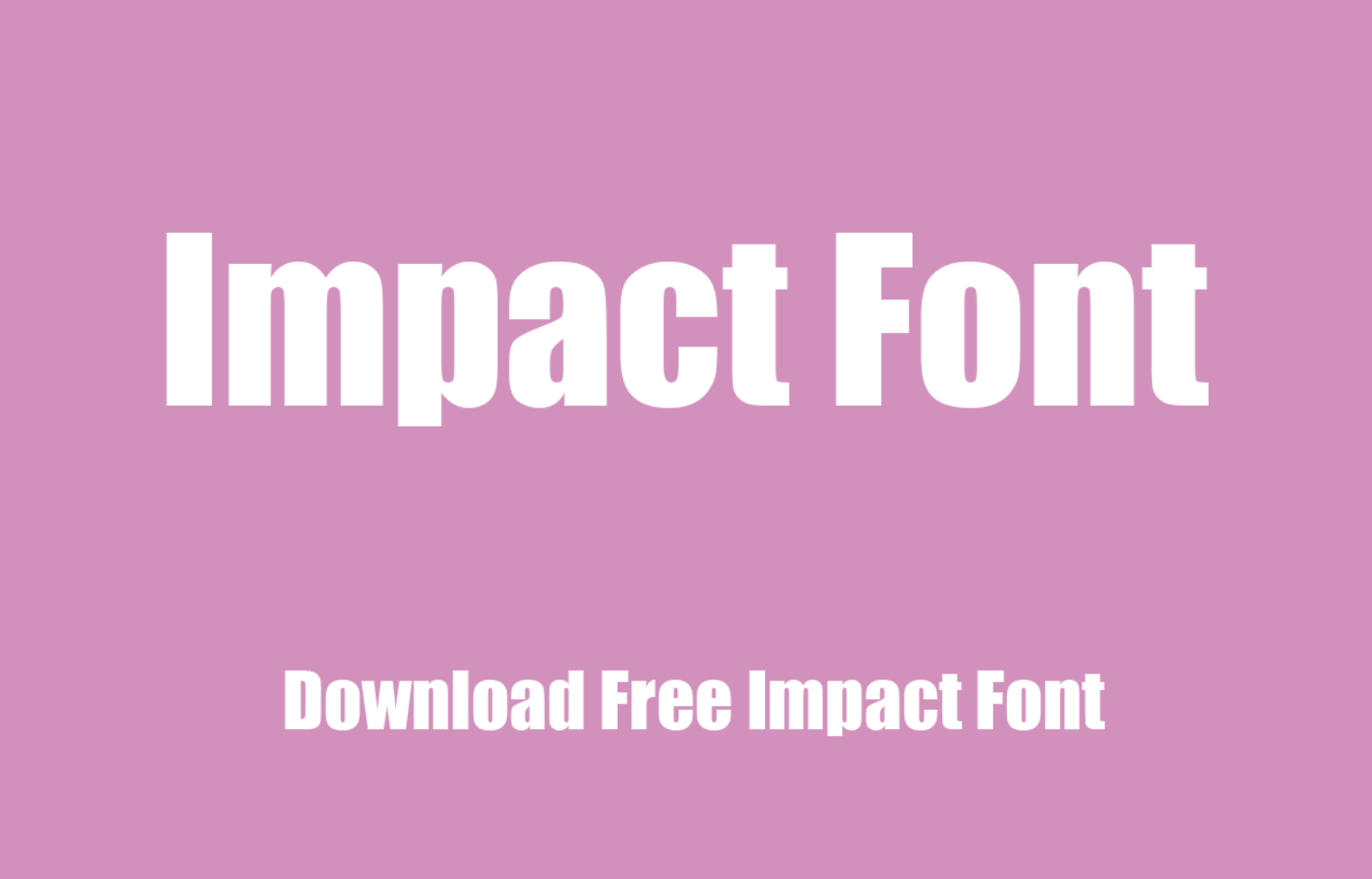
2. Bebas Neue (Free)
This is a bold and strong font that's perfect for attention-grabbing YouTube thumbnails and videos. It's also a great font for emphasizing important points in your videos that often need on-screen text, such as cooking videos and travel vlogs. You've definitely seen it before - many Youtubers commonly use it in white with a black outline. It's the go-to Youtube thumbnail for some of the most popular creators.
If you want to grab your audience's attention, this is the best font for you.
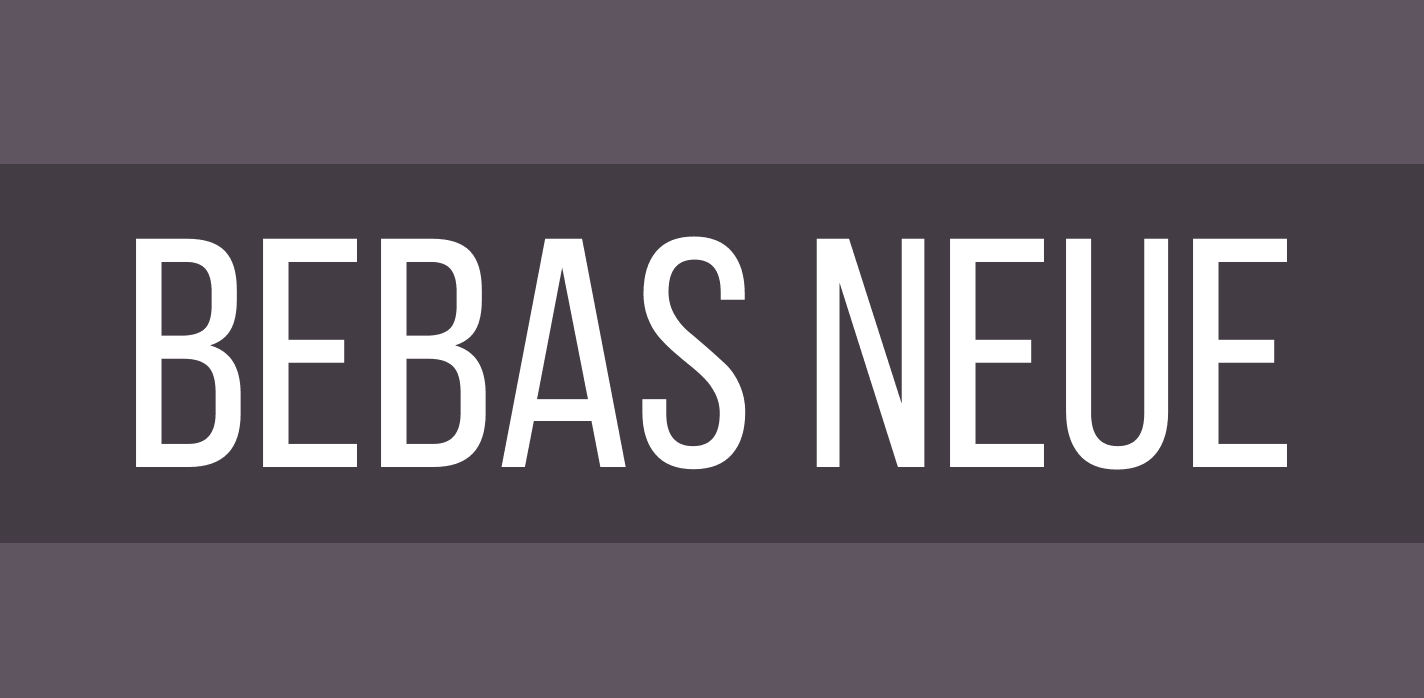
3. Roboto (Free)
One of the free best fonts for Youtube is Roboto. Designed by Christian Robertson, Roboto's sleek style is a perfect match for informational channels that need to be straightforward.
Fun fact - this is Google's most popular font. If YouTube is using Roboto for personal use, maybe we should take a note too.
4. Lato (Free)
Lato is sans-serif, aesthetically pleasing, and one of the most popular fonts on Youtube. It's great for Youtube content that's meant to be engaging and relatable. It's a popular choice for YouTubers who want to connect with their target audience on a personal level and a fantastic choice for both personal and commercial projects.
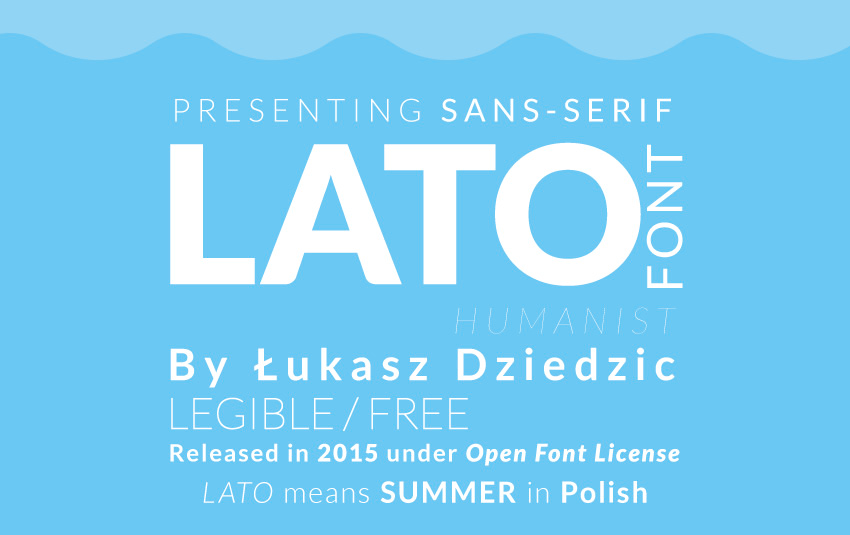
5. Raleway (Free)
Raleway is a beautiful and professional font with unique features that make it one of the perfect fonts for anything that needs a touch of refinement, from logos to headlines to display text.
It's one of the best fonts to make a statement without shouting it from the rooftops. Use this stylish font to create Youtube Thumbnails and attention-grabbing in video text. Careful with where you use this on Youtube, as the W in this font is an extremely eye catching feature and can catch some by surprise.
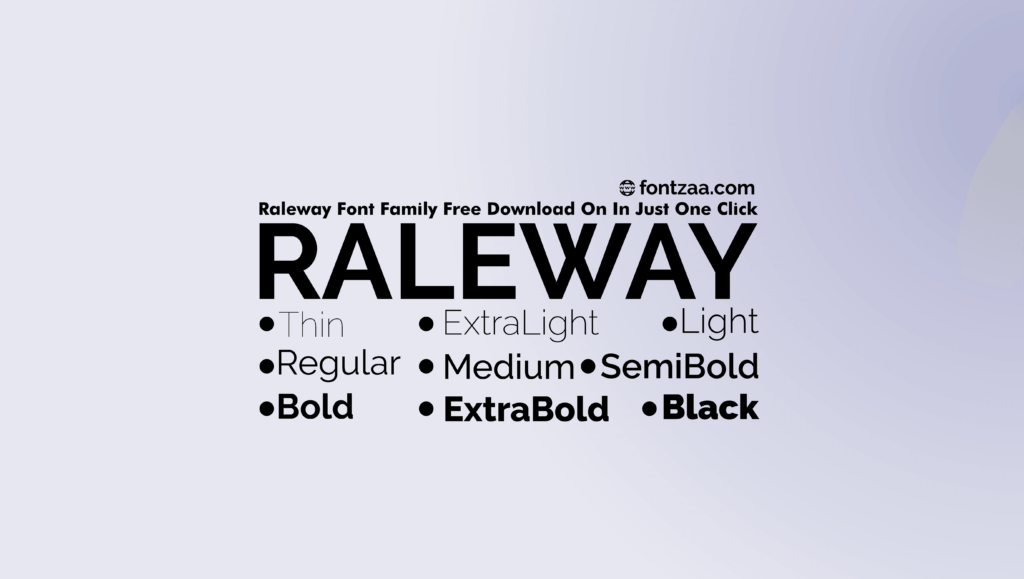
6. Open Sans (Free)
Open Sans is a free sans serif font style, and one of the best fonts for versatility. This font is just what you need if you want to keep consistent across, your video thumbnail, Youtube banner, and even in video text.
If you need something eye catching in your videos that isn't too "in your face", Open Sans might be one of the best fonts for you.
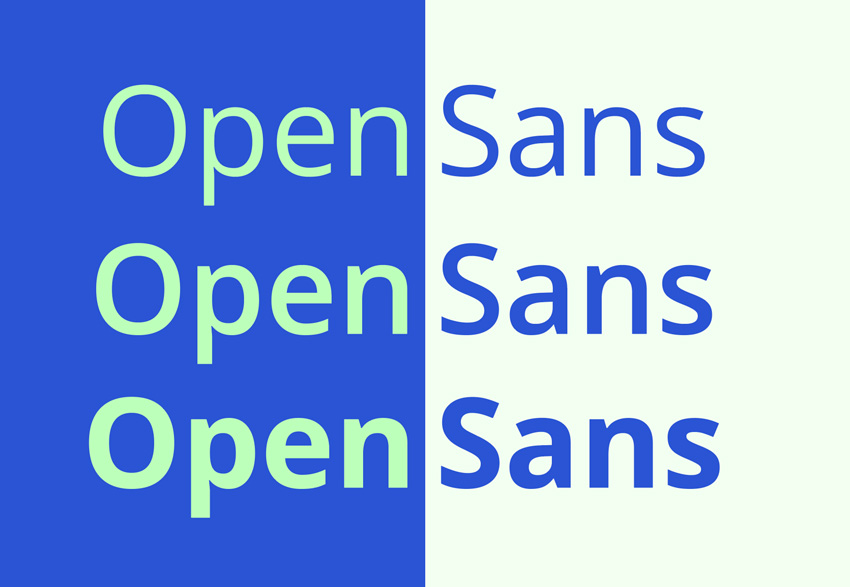
7. Gotham (Free)
Gotham is a classic font that's been around for over a decade. It's a bold and attention-grabbing font that's perfect for titles and headlines. It's also a stylish urban font that can effectively deliver a message. Remember a certain former President making waves with one word: "HOPE"? We bet you do, and that should speak to why this is one of the best fonts for Youtube thumbnails and channel banners.
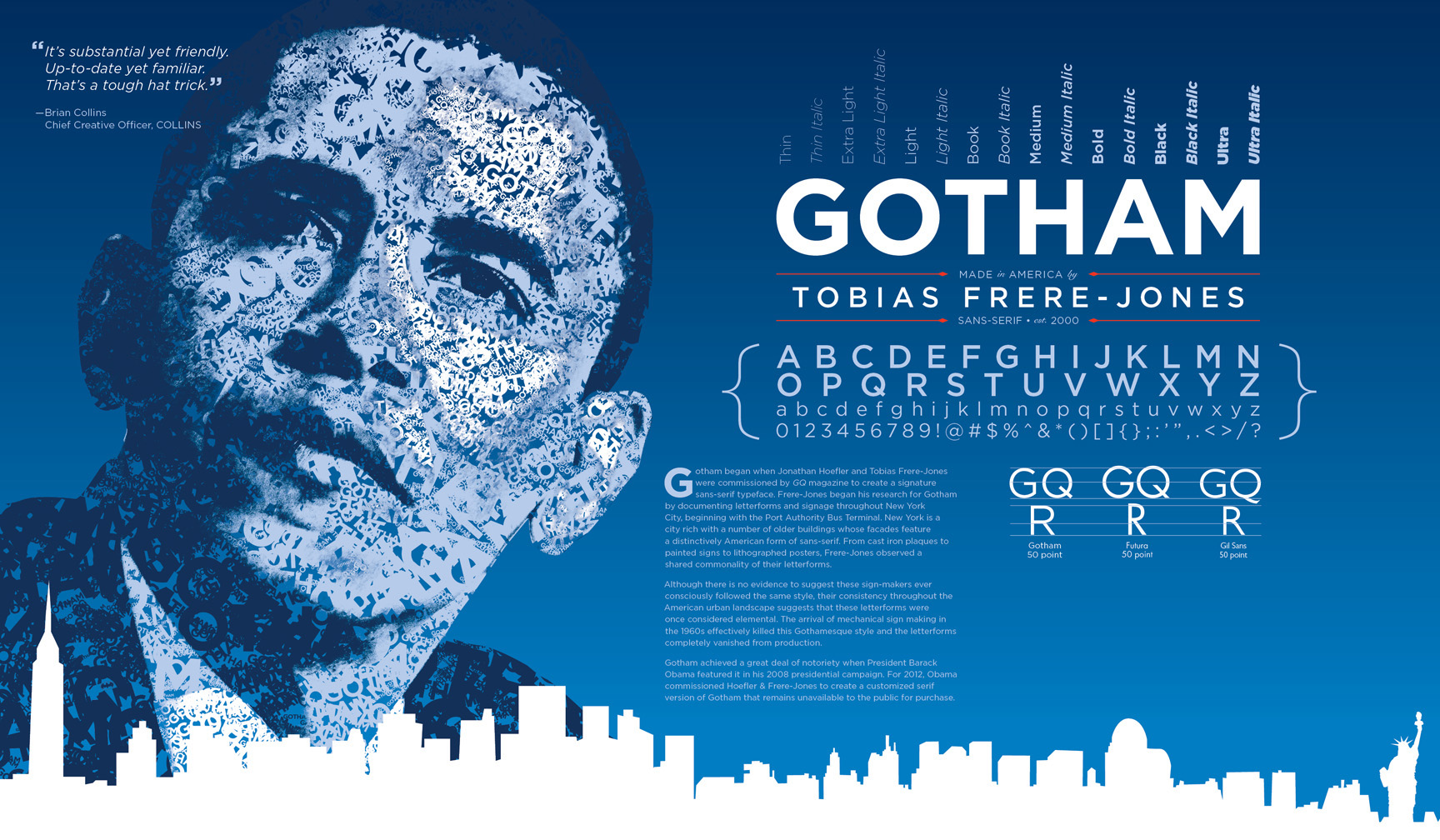
8. Proxima Nova (Free)
Proxima Nova is a sleek and modern font that's great for tech, gaming, and other futuristic content. It's a popular choice among YouTube creators who want to convey a sense of innovation and progress. When it comes to bold fonts for Youtube thumbnails, Proxima Nova's bold font styles provide a variety of amazing options. This font pack even comes with extra styles including an italic version.
Although Proxima Nova was officially released in 2015, type designer Mark Simonson started working on the typeface almost in 1980, 25 years earlier! Talk about a work in progress.
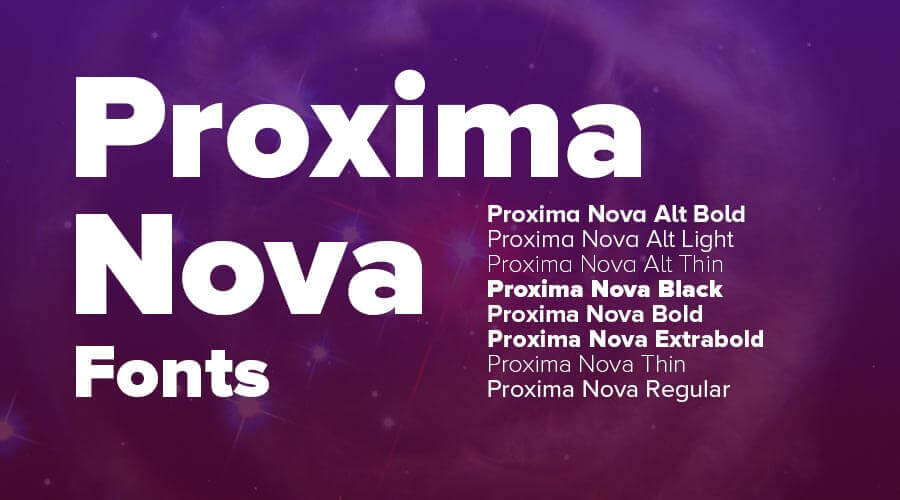
9. Playfair Display (Free)
When it comes to youtube fonts, Playfair Display might just be the best option out there for fashion, beauty, and lifestyle content. It's a popular choice among YouTube creators who want to keep their font stylish and convey a sense of luxury and refinement in their Youtube videos.
Although created in 2011, this font was influenced by typefaces from the mid to late eighteenth century, such as Baskerville.
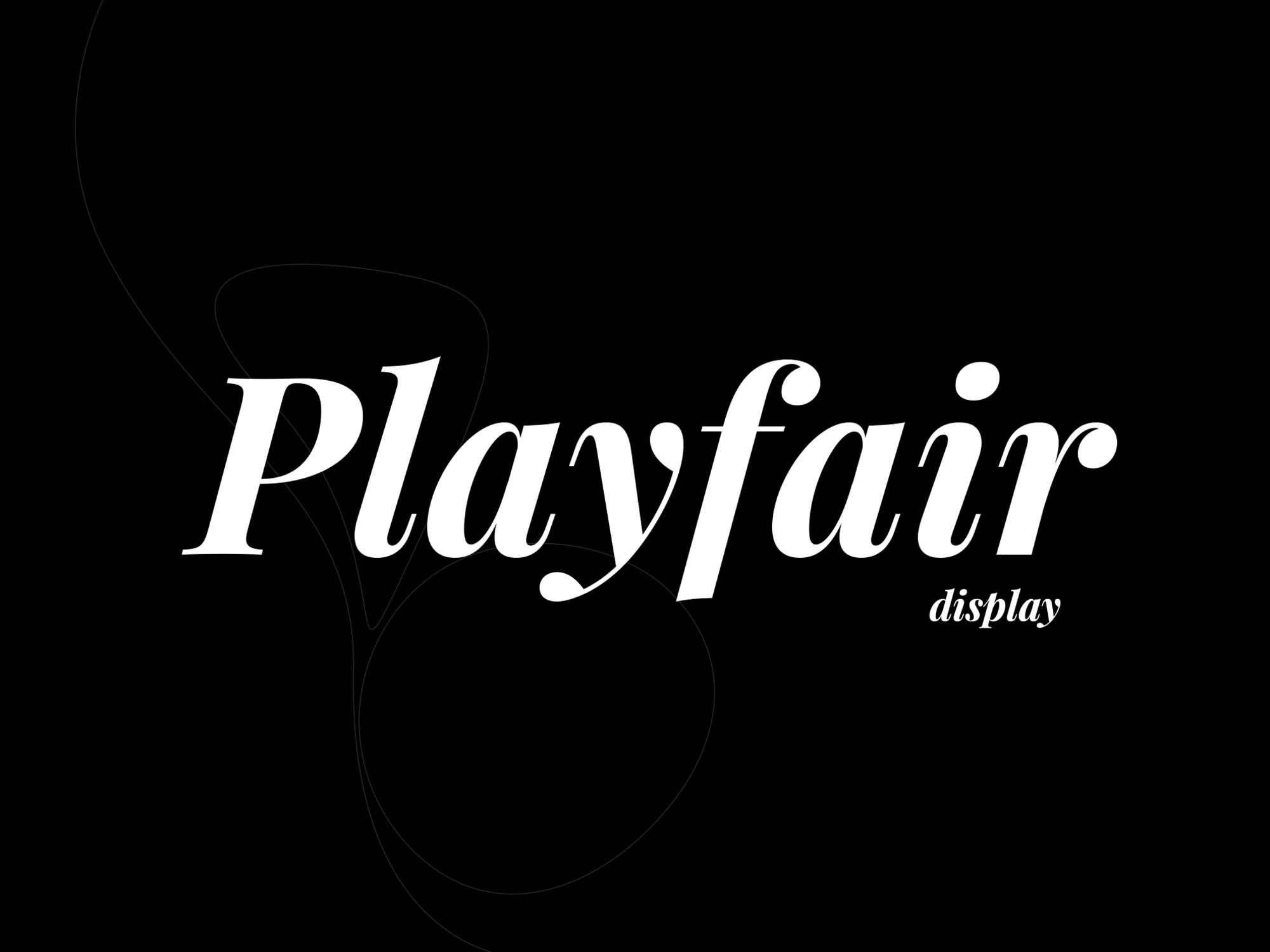
10. Avenir (Free)
Avenir might be the best Youtube font for YouTube creators who want to convey a simple and effective look. If you're not looking for a funky font and trying to stay far away from a quirky font, you can trust Avenir to do the job.
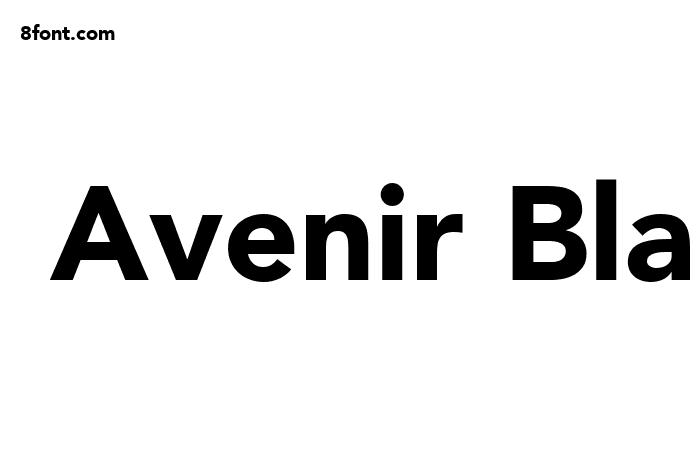
11. Futura (Free)
Futura is a classic font that's been around since the 1920s. Tried and true, many Youtubers still use this old font for it's bold, futuristic vibe to convey the same type of emotion with their Youtube videos. Futura was even used by NASA on the side of their rockets, and could be seen on the Apollo 11 mission. That's a pretty impressive track record in the world of fonts.
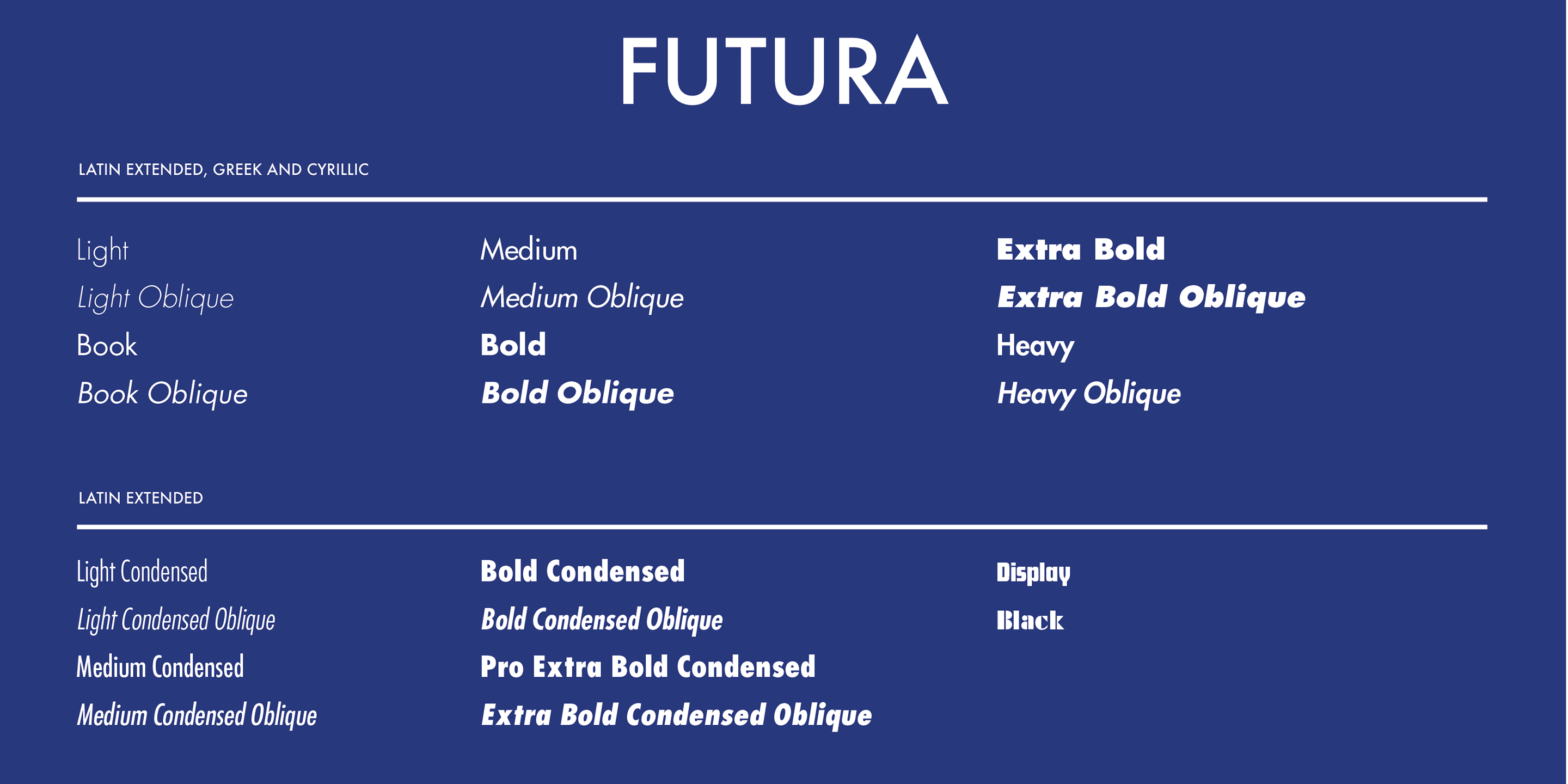
12. Helvetica (Free)
Helvetica is celebrity amongst fonts. Often, it's the default font for commercial use, as brands such as BMW, General Motors, Kawasaki, Knoll, Kroger, Lufthansa, Motorola, Nestlé, Skype, Microsoft, and Apple have taken advantage of its versatility. This font is an amazing choice for Youtube thumbnails and in video text. Many Youtubers use two fonts, Helvetica for captions and on screen text, and another font for the rest of the assets on their Youtube channels.
13. Baskerville (Free)
Baskerville might not always be the best font for Youtube captions and text on screen, however it can truly make a for the perfect go-to font when you need a themed video. Many Youtubers in fashion, beauty, and lifestyle use this font to represent luxury and refinement. That said, this font might only be best used for a Youtube thumbnail.
14. The Risk (For purchase)
Looking for a Youtube font that conveys the outdoors and adventure? Although strictly for Youtube thumbnail use, The Risk is perfect for those camping and outdoor adventure channels. This isn't just any regular font, it has a beautiful handwritten style that's sure to grab the attention of your audience.
15. DK Mandarin Whispers (Free)
One of the best Youtube fonts for lifestyle and travel channels is DK Mandarin Whispers. This font has a fun handwritten style that can be adjusted to a variety of styles and sizes.
16. Game Over (For purchase)
Game Over might seem like a gaming channel font, but it looks absolutely amazing for videos that need on screen text such as lyric videos. It's designed with a bold brushed style, and comes in SVG format so you can scale as needed, making this a perfect font for channel art. This font can be used with different colors, but the default red is something straight out of a 80's horror flick.
17. King Crayon (For Purchase)
Youtube fonts are often bold and simple, but are your videos bold and simple? If you're looking for a fun font style that truly encapsulates the personality of your lighthearted Youtube videos King Crayon might just do the trick.
18. Caribold (Free)
For a regular outline font, Caribold is a perfect choice. This design stays consistent with some of the best Youtube fonts like Impact, and can create stunning visuals with both your Youtube thumbnails and on screen captions. It stays visually appealing while also maintaining maximum readability. Do you want your videos to scream "I know what I'm doing!"? Then Caribold is your best bet.
19. Juan Cock (Free for personal use)
This font is the perfect choice for creators looking for a stylish font with a masculine vibe. Check your demographics. Is it mostly males? Then a bold, masculine font style like this might resonate with your audience the most.
20. Horsemen (For purchase)
Horsemen is a retro font inspired by the 70's and 80's. Ever played Streetfighter? Well, this is pretty on point. This font looks perfect for Youtube thumbnails and banners when creators want fonts that give a retro look. Looking for channel art fonts that pop for your Youtube banner? Look no further than Horsemen for your Youtube font.
21. Frisky Puppy (Free)
Creators that make Youtube videos directed toward children don't need to look any further than Frisky Puppy. This font looks perfect on thumbnails, banners, and even channel art when your audience is made up of mostly children. This cute font has tons of versatility, and might be one of the most eye catching fonts for the smallest of children.
22. Config Rounded (Free)
If you want a sleek and professional look for your Youtube thumbnails, Config Rounded will be the best font for the job.
Although professional, the rounded edges take a bit of the intense corporate energy away, and gives way to a style we can only describe as business casual. This font is great for guides and simple explainer videos, but has enough versatility to be used for plenty more.
23. Tsuki (For purchase)
Tsuki is one of the best fonts for Youtube if you make content related to Japanese culture. Because of its bold and straight lines, it makes a perfect choice for videos about Japanese anime or manga. Tsuki is a fun font, so combine bright and lighthearted colours to get the most out of this font's personality.
24. Dustin (For purchase)
Dustin is a modern font with plenty of pop. This font is perfect for Youtube videos if you want to show off an upbeat personality and it keeps it's minimal design while still being trendy and stylish. In the world of Youtube fonts, this might just be the life of the party.
25. Bangers (Free)
If you're looking for a traditional attention grabbing font for your Youtube videos, you'll likely come across comic sans, the black sheep of fonts. Bangers saves the day and takes comic-sans to the next level with a modern update versatile enough for any youtube video. It looks like it came straight out of some marvel comic books but still grabs your attention in the best possible way.
26. Vlogger (For purchase)
Vlogger is a friendly and approachable font that's great for content that's meant to be engaging and relatable. It's one of the Youtube fonts that screams just lifestyle vlog. Day in the life Youtube titles? Vlogger is the font for you.
27. Meowza (For purchase)
Meowza is a playful and eye catching font perfect for your Youtube video thumbnail. This is a bold font that looks like it came fresh from the animation studio. Youtube fonts need to stand out from the crowd, and this font does just that.
28. Formula A (For purchase)
If you make content related to cars or racing, then Formula A can be the right font for your thumbnails. It has a a sleek and professional look, and captures burning rubber perfectly.
A few tips and tricks for Youtube fonts
Youtube Fonts Generator
There are plenty of websites that offer a copy and paste Youtube font generator to use with Youtube titles, but experts usually advise using the default Youtube fonts only. For this reason, we recommend not using a Youtube font generator with your Youtube channel.
Think like Youtube
Think of the Youtube logo, simplicity and boldness is a common theme on the platform. Channel the Youtube logo into your thumbnail and get some scroll stopping attention. Make sure the fonts you choose fit the personality of you and your brand, and get creative with how you use them.
Final Word
Choosing the right Youtube fonts for your channel can make a huge difference in the visual appeal and overall success of your channel. There are plenty of ways to make your business stand out with graphic design, and beginning with the low hanging fruit is a great start. With this guide, finding the perfect font is a breeze! Creating the perfect thumbnail every day? That's hard. Graphic Design as a Service providers like AgentSocial.app's graphic design subscription can consistently create a unique thumbnail for you each day without breaking the bank or sinking your time. Just choose a graphic design subscription and get started.
These 28 top fonts are just some of the top options to consider for 2025, and can help you convey the message and image you want to present to your audience.